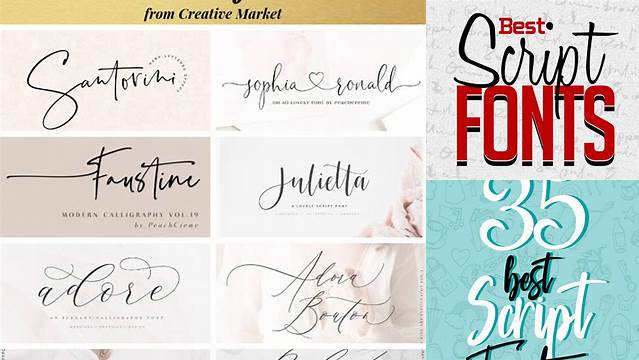
Top Script Fonts For Graphic Designers: Best Picks
Hey guys! Choosing the right font can totally make or break your design. If you’re looking for something elegant, playful, or downright fancy, script fonts are where it’s at. But with so many options out there, how do you pick the best script fonts for graphic designers? Don't worry, we've got you covered. Let's dive into some top picks that will seriously elevate your projects.
1. Elegant Script Fonts for Wedding Invitations
When it comes to wedding invitations, you want something that screams sophistication and romance, right? Elegant script fonts are perfect for setting that dreamy tone. Think flowing lines, delicate curves, and a touch of classic charm. These fonts not only add a personal touch but also communicate the importance and grace of the special day. Using the best script fonts for graphic designers is key here. For example, consider using Belinda Script or Aphrodite Pro. These fonts bring elegance and readability, ensuring your invitations look stunning and are easy to read.
Elegant script fonts also work wonders in other upscale branding materials. Imagine a high-end cosmetics brand using a script font on its packaging or a luxury spa using it for its logo. The visual appeal helps to convey quality and exclusivity. Pay attention to spacing and kerning to ensure your text looks polished and professional. Elegant does not always mean complex; sometimes simplicity in script form can exude more class than overly decorative options. By choosing a well-balanced, elegant script, you're not just selecting a font; you're crafting an experience.
Moreover, these elegant scripts can be beautifully paired with serif or sans-serif fonts for body text to maintain readability while adding a touch of sophistication. The combination of a script header with a clean, simple body helps balance aesthetics and practicality. It’s all about creating a visual harmony that speaks volumes about the brand's identity. So, the next time you need to create a design that demands grace and elegance, remember to reach for those elegant script fonts – they won't disappoint!
2. Modern Script Fonts for Branding
In today’s fast-paced world, modern script fonts are all the rage for branding. Forget those stuffy, old-fashioned scripts; we're talking sleek, contemporary designs that capture attention. These fonts blend the fluidity of traditional scripts with a fresh, modern twist, making them ideal for brands that want to appear stylish and approachable. A crucial aspect of finding the best script fonts for graphic designers lies in how well a font can represent a brand's voice. Consider a fashion brand using a modern script for its logo or a tech startup incorporating one into its website. These choices make a strong statement: "We're innovative, creative, and on-trend."
Modern script fonts aren't just about looking good; they also need to be versatile. They should work equally well on business cards, websites, and social media graphics. Some great examples include Selima Script or Hello Script. They are clean, readable, and possess a unique flair that sets them apart. When using modern script fonts, pay attention to the weight and thickness of the lines. A thicker script can convey boldness and confidence, while a lighter script feels more delicate and refined. It’s all about finding the right balance that resonates with your brand’s personality.
Furthermore, modern script fonts often feature unique ligatures and swashes that add an extra layer of sophistication. However, it’s crucial to use these elements sparingly to avoid overwhelming the design. Pairing a modern script with a simple sans-serif font can create a striking contrast that enhances readability and visual appeal. Remember, the goal is to create a memorable and cohesive brand identity that stands out in a crowded marketplace. So, embrace the power of modern script fonts and watch your brand come to life!
3. Playful Script Fonts for Children's Books
Alright, let's talk about playful script fonts – the go-to choice for anything aimed at kids! If you’re working on a children's book, a fun and engaging font is an absolute must. These fonts are all about capturing the imagination and bringing a sense of joy to the page. What makes a font playful? Think rounded edges, quirky shapes, and a touch of whimsy. The best script fonts for graphic designers in this genre evoke a sense of childlike wonder.
Imagine a children’s book about a friendly monster. Using a playful script font like Bubblegum Sans or Patrick Hand can instantly make the character more appealing. These fonts are designed to be approachable and easy to read, even for young children who are just learning to recognize letters. Playful fonts also work great for educational materials, party invitations, and anything else that needs a dose of fun. When selecting a playful script, consider the overall tone of your project. Is it silly and lighthearted, or more heartwarming and gentle? The font should reflect that.
Moreover, playful script fonts often come with extra glyphs and decorative elements that can be used to enhance the design. Stars, hearts, and swirls can add a touch of magic, but be careful not to overdo it. The key is to strike a balance between fun and readability. Pairing a playful script with a bold sans-serif font for headings can help to create a visually appealing and engaging layout. So, next time you’re working on a project for kids, remember the power of playful script fonts – they’re sure to bring a smile to everyone’s face!
29. The Future of Script Fonts in Graphic Design
Looking ahead, the future of script fonts in graphic design promises exciting developments. New technologies and design trends will continue to shape the way these fonts are used.
30. Script Fonts and Their Psychological Impact
Understanding the script fonts and their psychological impact can help you choose fonts that resonate with your audience. Different styles of script evoke different emotions and associations.